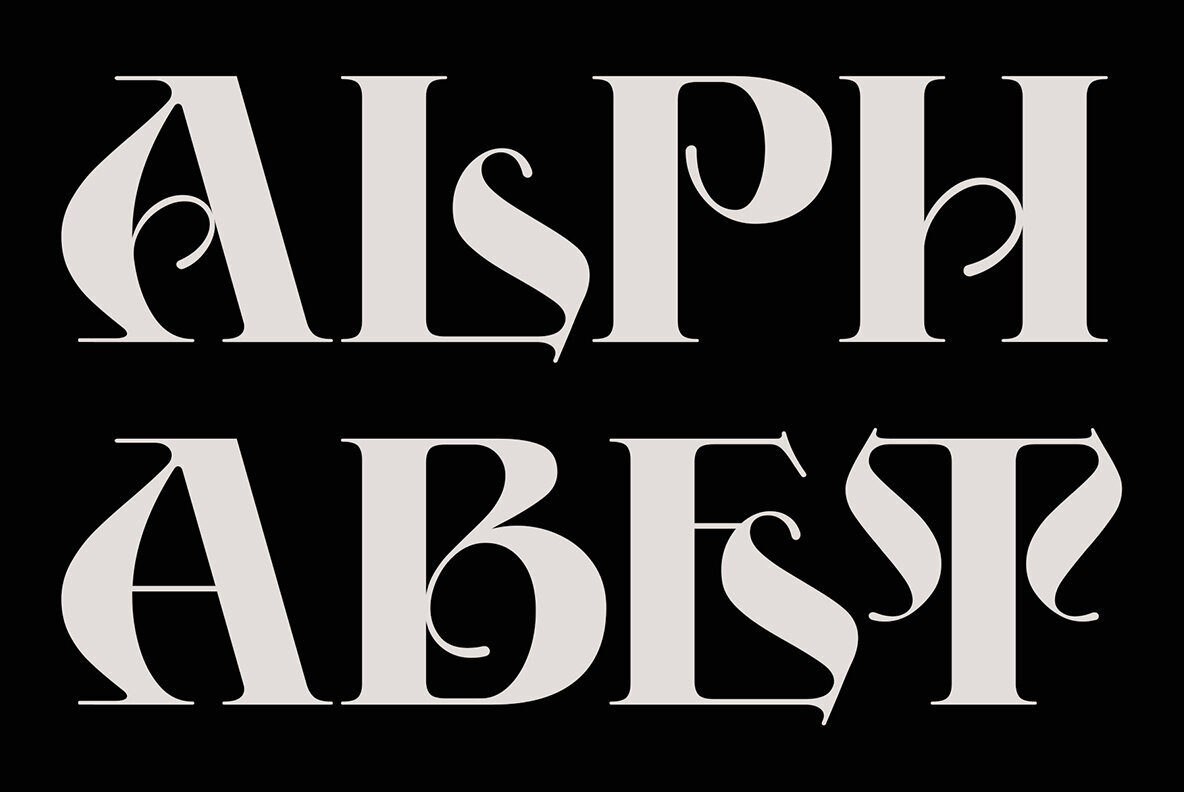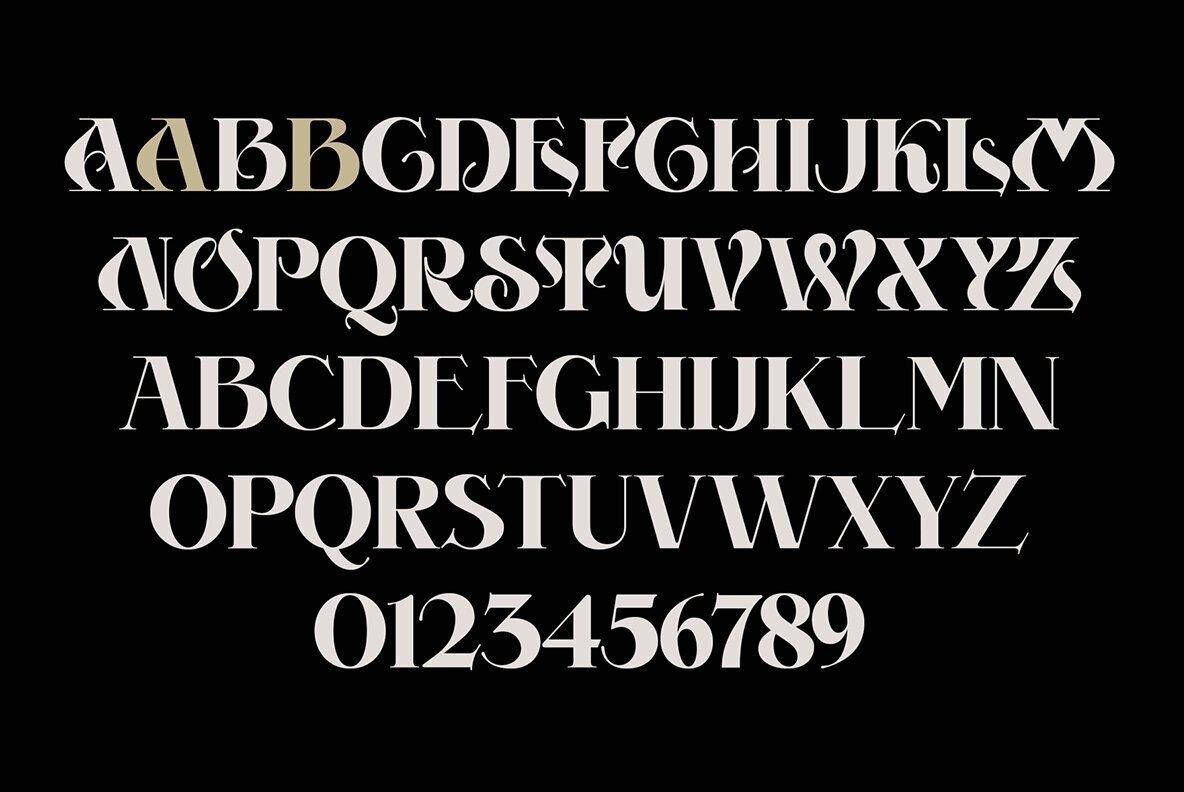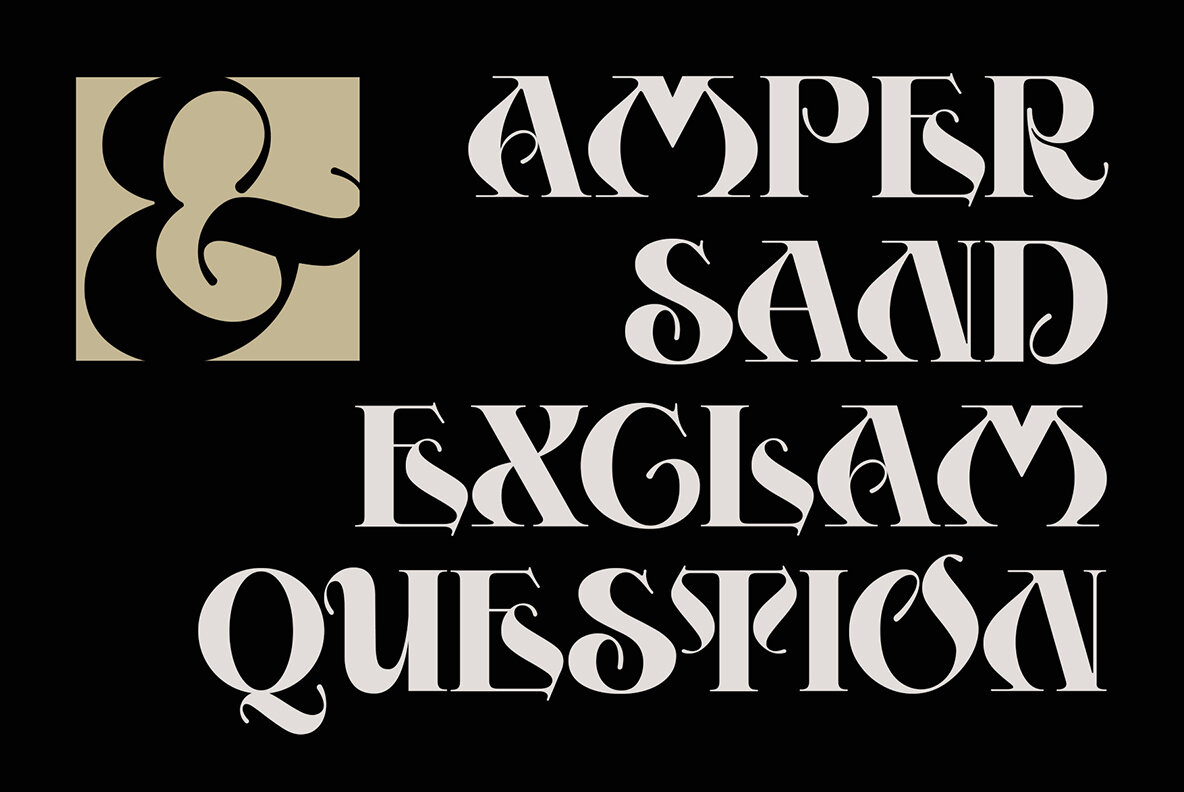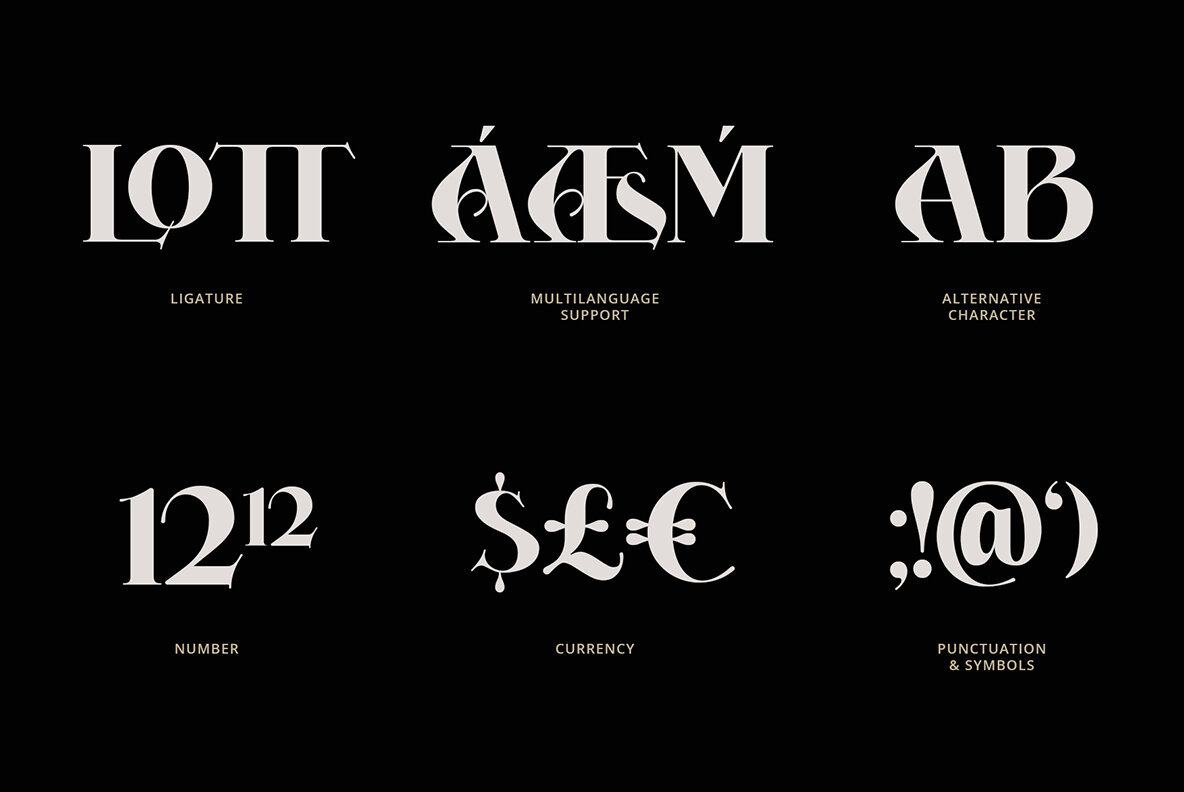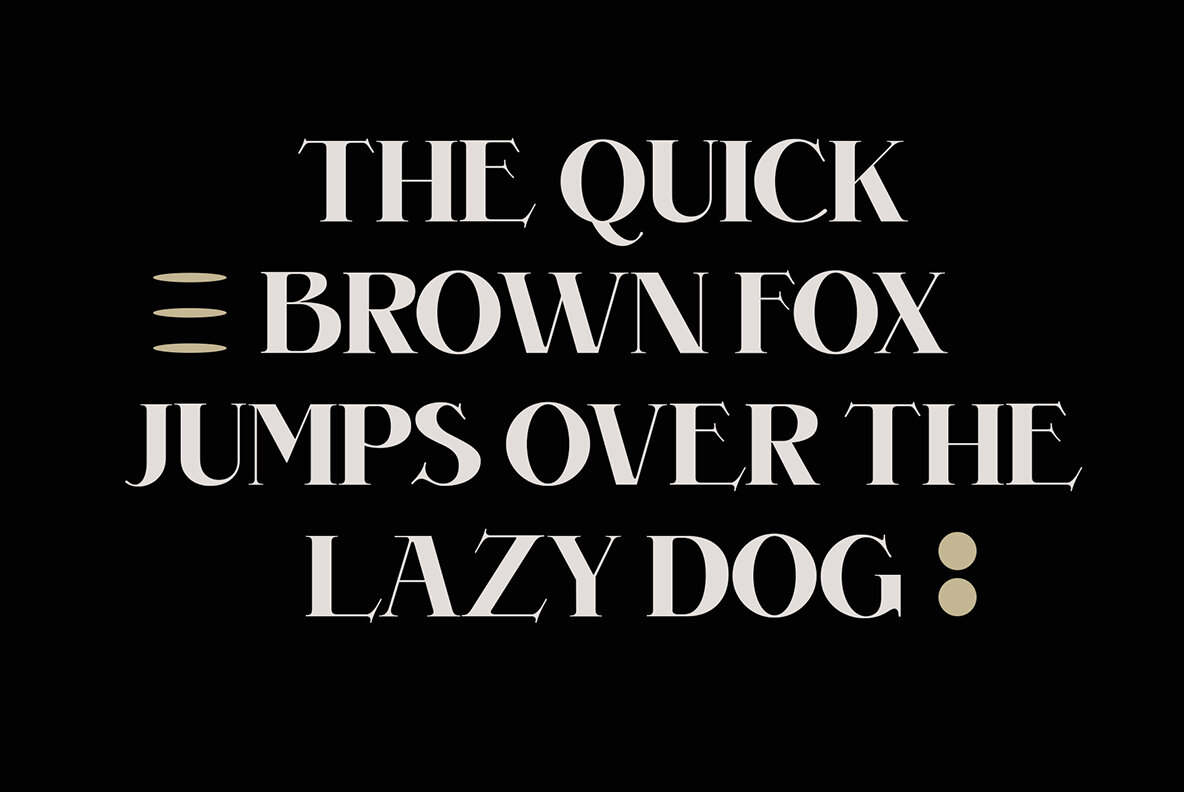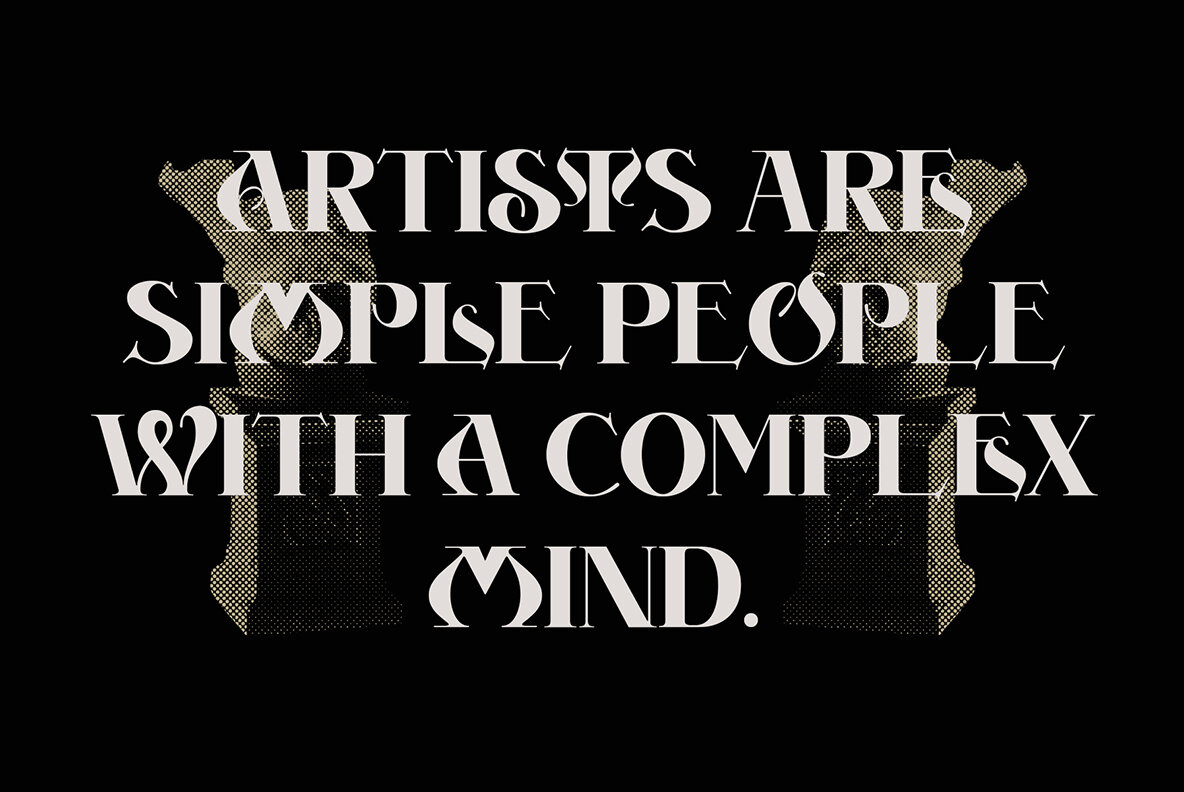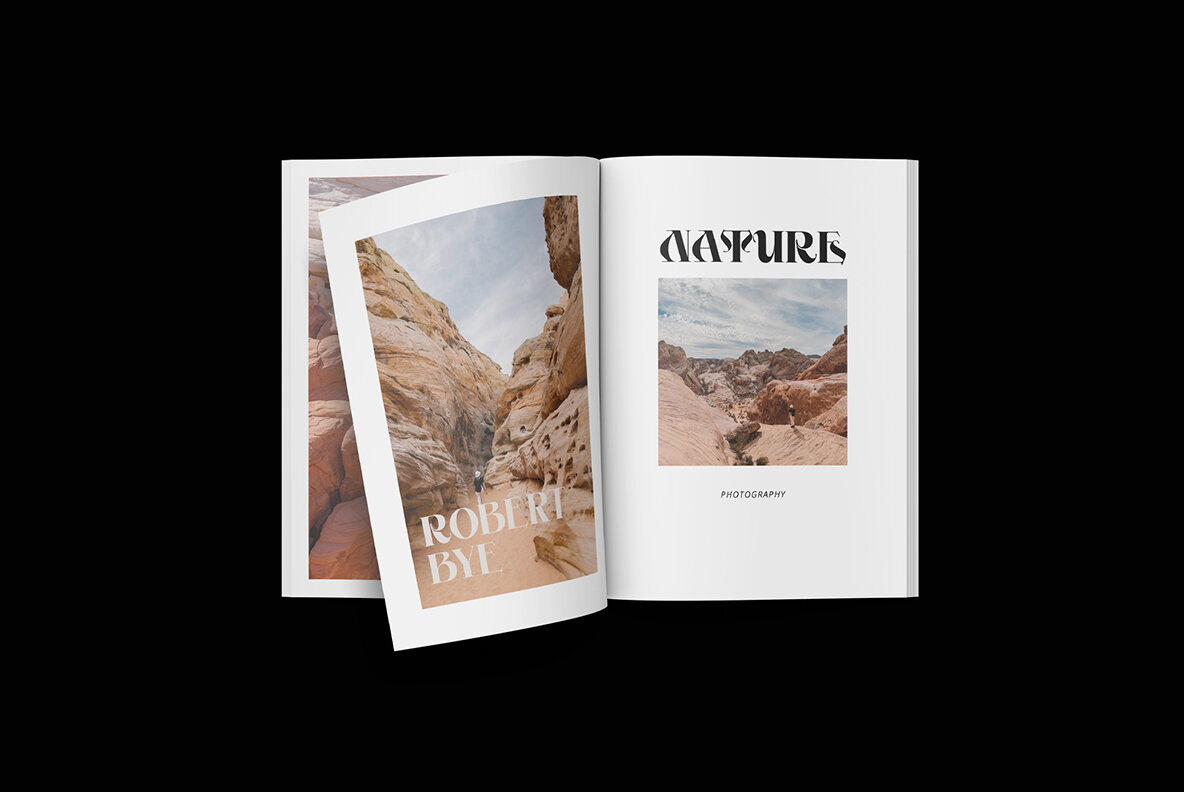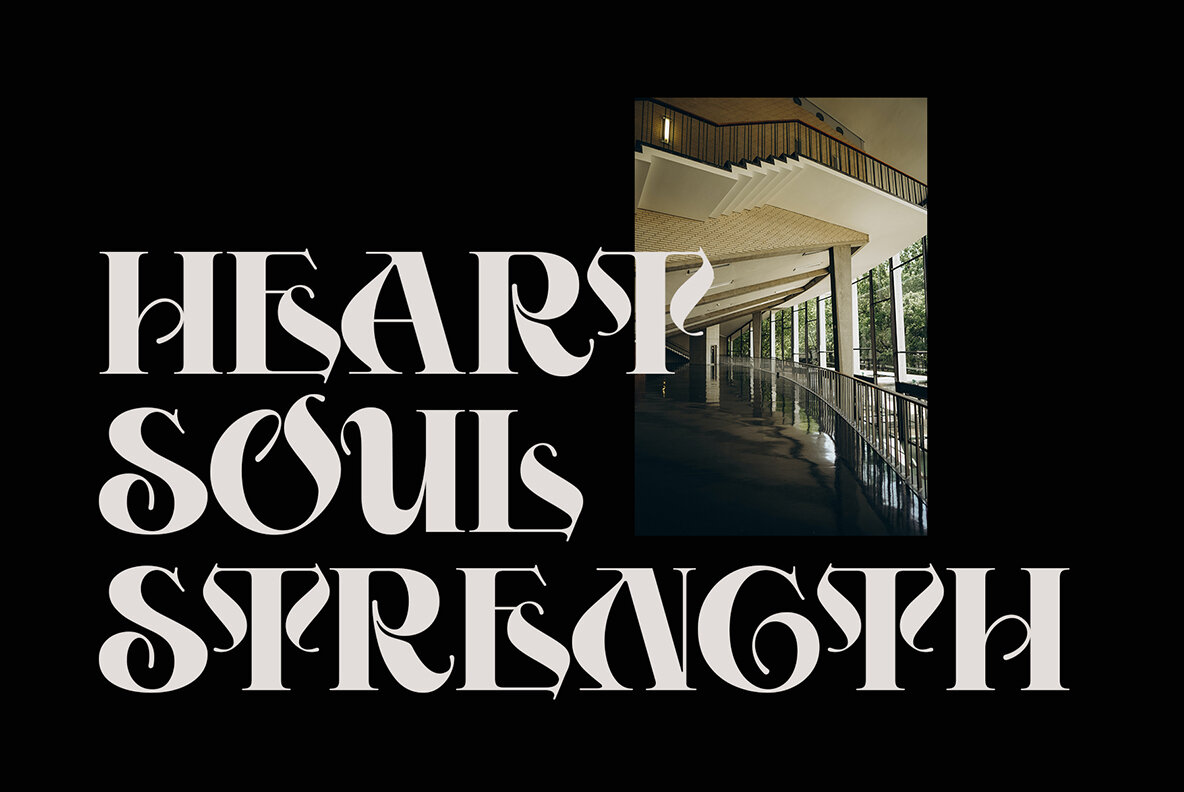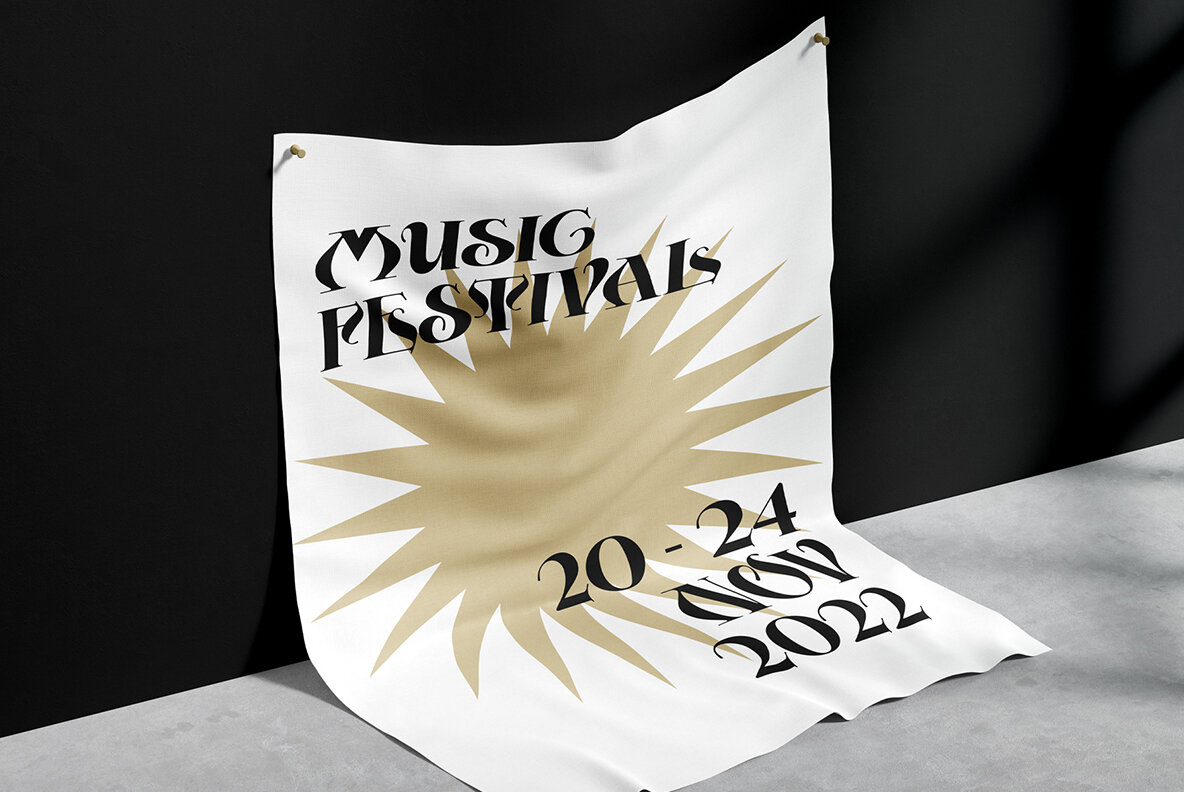
ED Alben: A Classic Inspired Display Font
ED Alben speaks to the intersection of tradition and modernity. Drawing inspiration from the historic Kangaroo alphabet by C.P. Zaner in 1901, this serif display font offers a touch of elegance suitable for any sophisticated design project.
While maintaining its classic essence, ED Alben introduces a contemporary flair. This font is well-equipped, providing a range of ligatures and alternative characters that broaden its versatility. Moreover, it boasts comprehensive multi-language support, ensuring it meets the diverse needs of designers around the globe.
• Ligatures for seamless connections
• Alternative characters for customization
• Multi-language support for global use